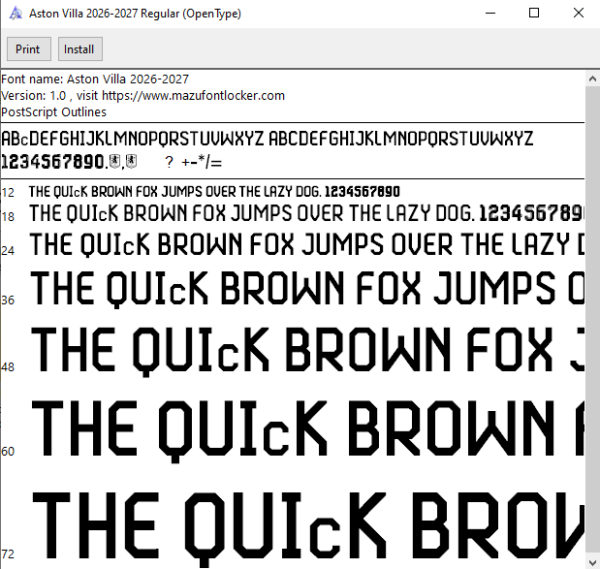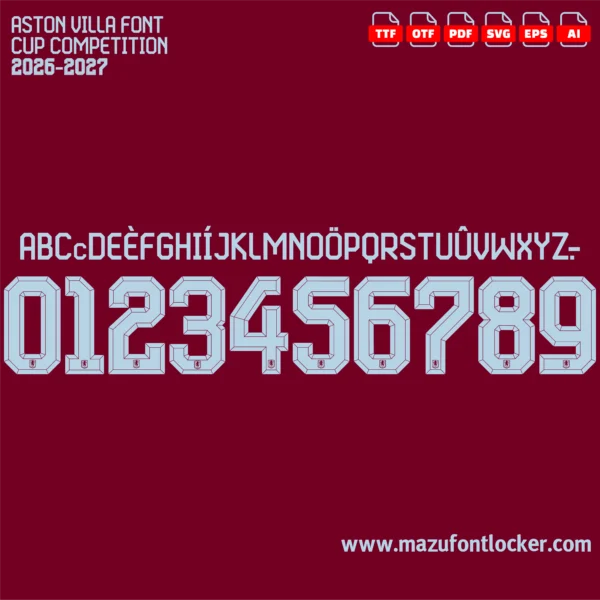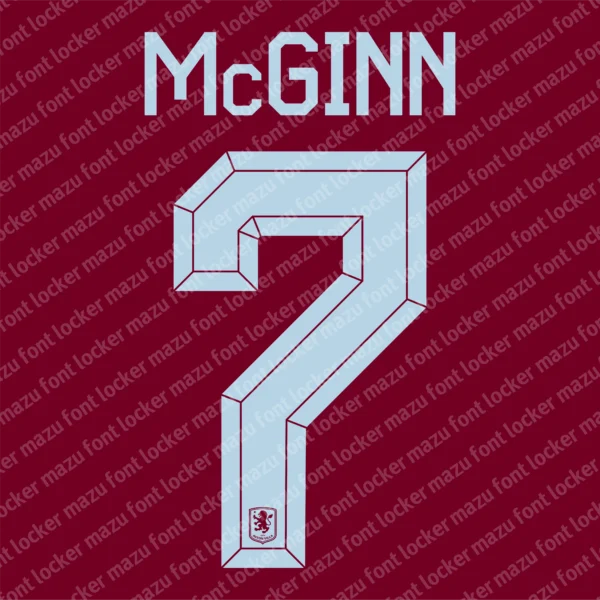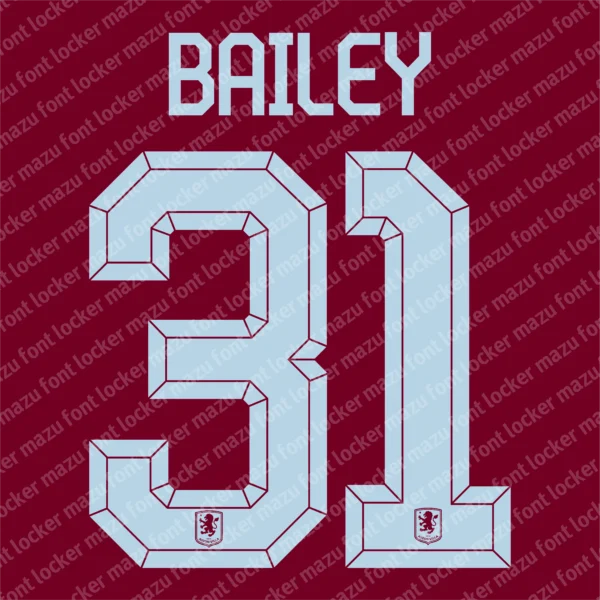
Aston Villa 2026-2027 Font Vector – Stunning Villans Masterpiece
Aston Villa 2026-2027 Font Vector – Authentic Villans Typeface
The Aston Villa 2026-2027 Font Vector is a premium typeface that accurately recreates the official match lettering worn by Aston Villa during the 2026-2027 Premier League and European campaigns. This high-quality vector font kit captures the bold, modern, and dynamic typography that represents the pride, tradition, and fighting spirit of the Villans.
Why Choose Aston Villa 2026-2027 Font Vector
This font stands out because of its sharp vector precision and strong club identity. Every letter and number is crafted to match the exact style used on the players’ shirts during the 2026-2027 season. Whether you are creating realistic kit templates or exciting Aston Villa content, the Aston Villa 2026-2027 Font Vector gives your designs that authentic Villa Park atmosphere.
The letterforms in the Aston Villa 2026-2027 Font Vector are bold, modern, and highly readable. The strokes feature clean geometric construction with excellent edge definition, creating a professional appearance that stands out on jerseys while maintaining the club’s prestigious English football heritage.
The numerals utilize strong contours and balanced proportions, giving them a confident and premium appearance. This vector design ensures flawless scalability and exceptional legibility across both print and digital applications.
• Full uppercase A–Z and numbers 0–9 in authentic Aston Villa 2026-2027 style
• Special Aston Villa crest glyph – Press the “:” (colon) symbol to insert the Aston Villa logo
• Multilingual Latin character support including accents and special characters
• Includes the exact crest glyph placement used beneath player numbers